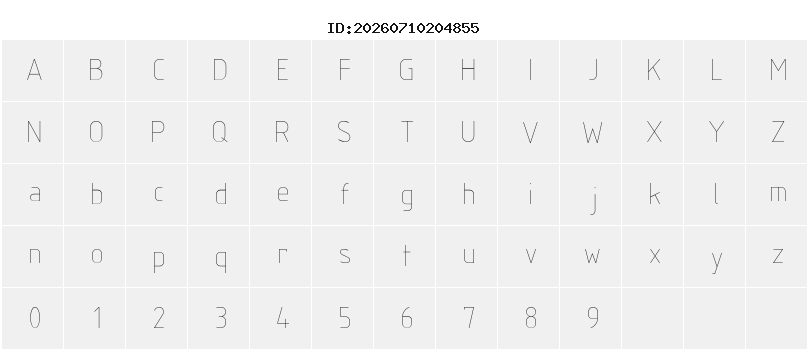
• Font Name: GENISO
• Manufacturer: Autodesk, Inc.
About GENISO.ttf
GENISO.ttf is a modern, elegant sans-serif font designed for ultimate readability and visual harmony. Perfect for branding, headlines, web design, and print materials.